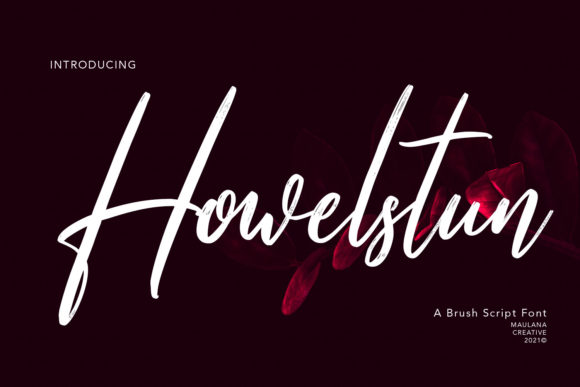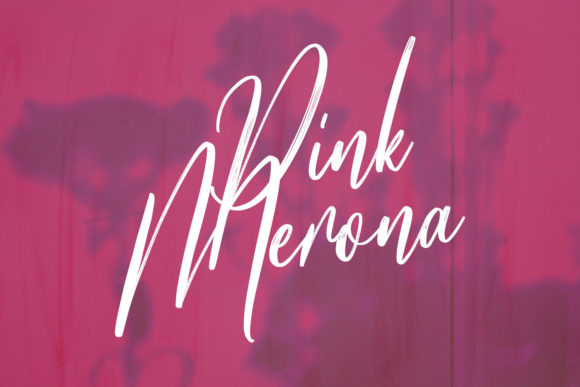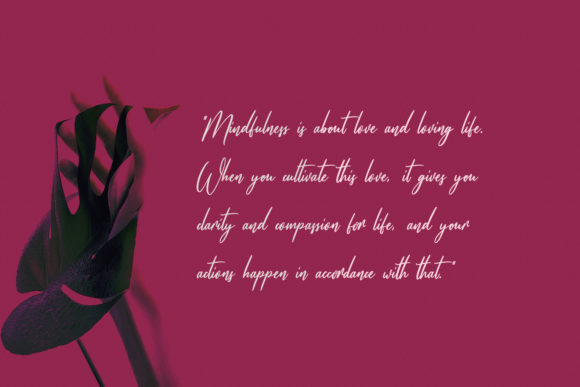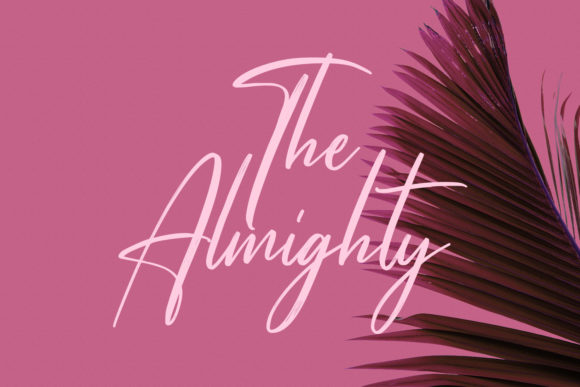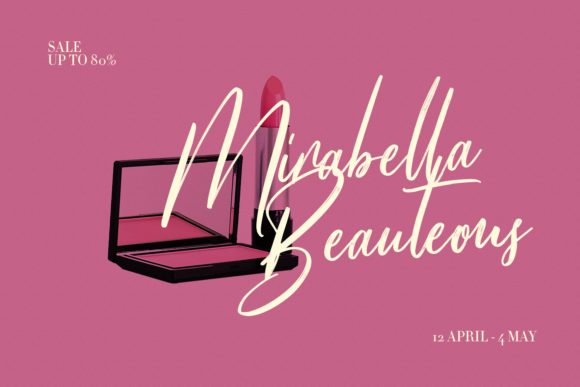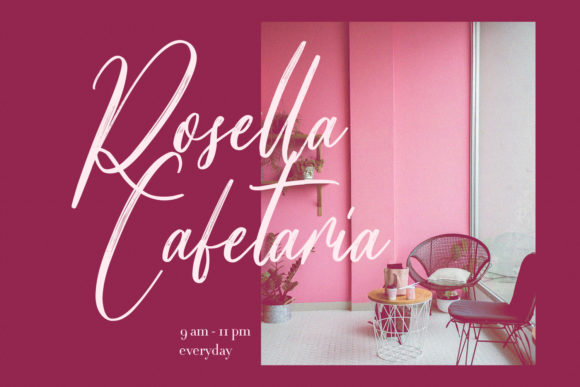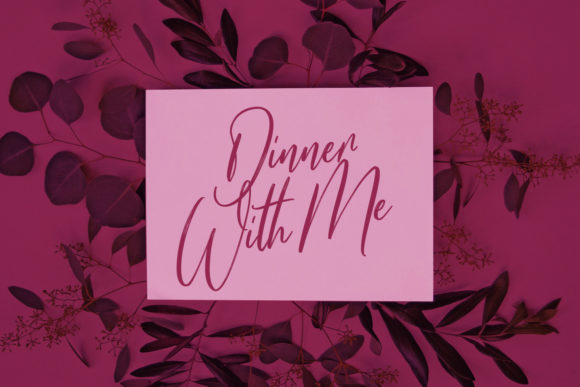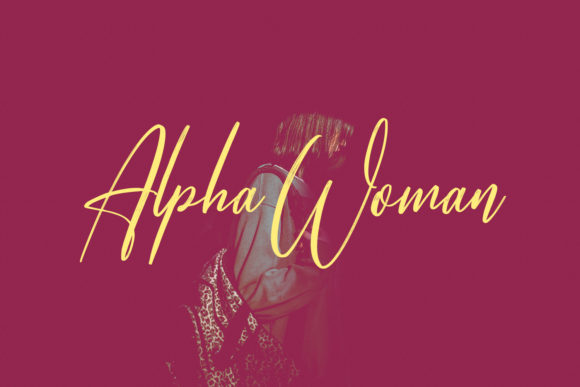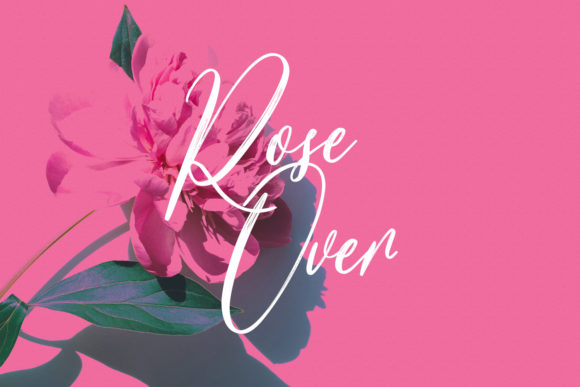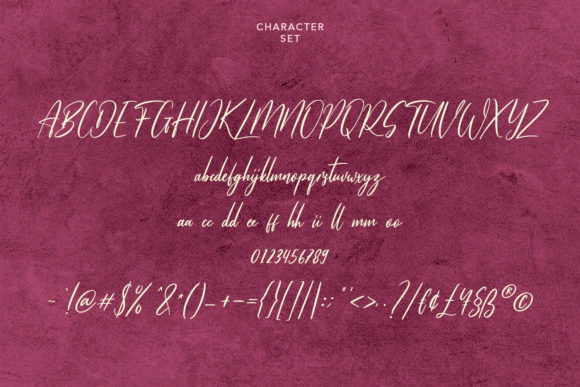
Howelstun Script Font
About Howelstun Script Font
Howelstun Script is a lovely and flowing brushed handwritten font. It can be used for various purposes such as logos, wedding invitations, headings, t-shirts, letterhead, signage, labels, news, posters, badges and so much more.